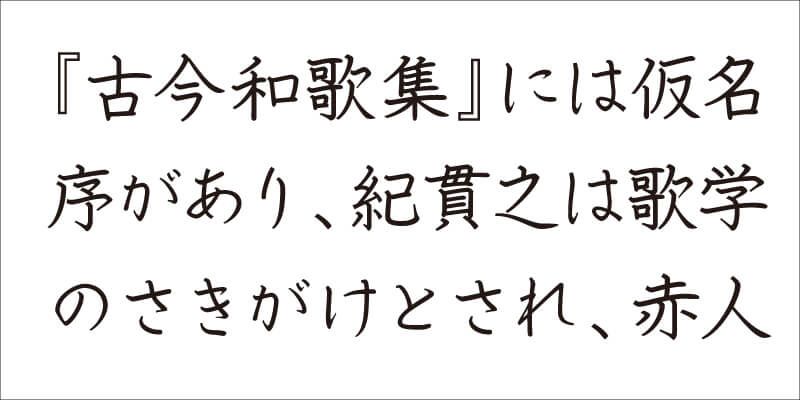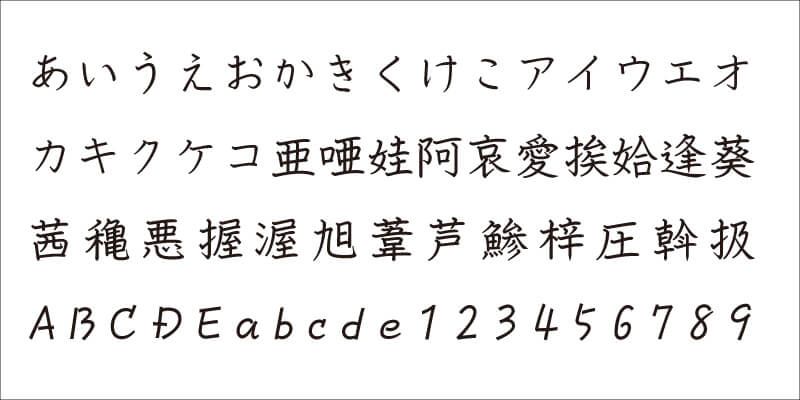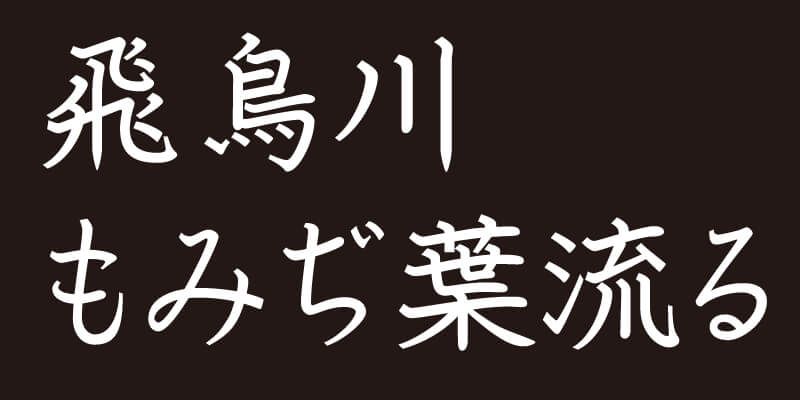
A “masculine yet elegant pen script”: this was the main design concept of VDL-PenGentle. Various properties of handwritten shapes such as the movement of the penpoint and the varying widths of strokes depending on the writing pressure, etc. were embodied in this digital representation. In both horizontal and vertical writing, VDL-PenGentle provides a smooth flowing effect in text composition. It gives the reader a reliable and intellectual impression.